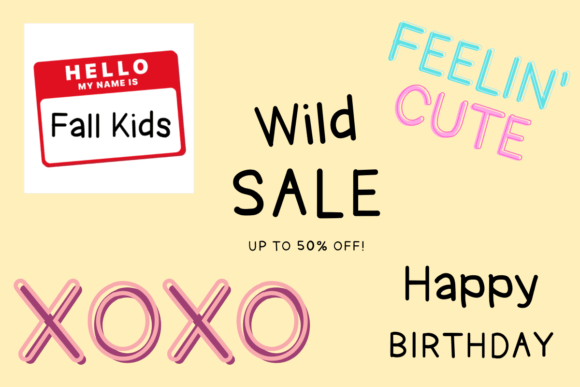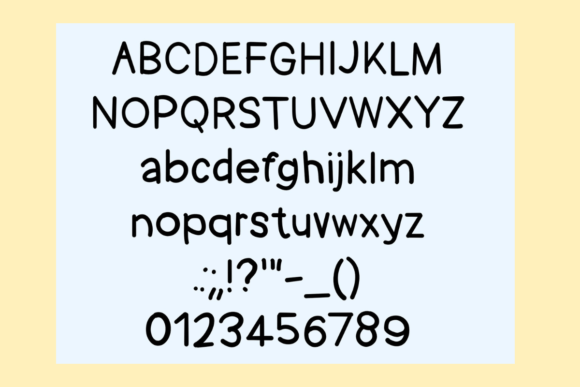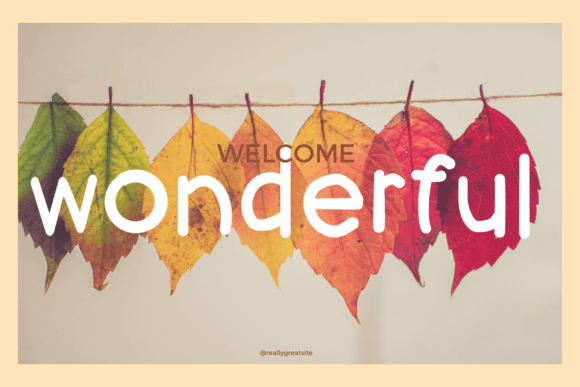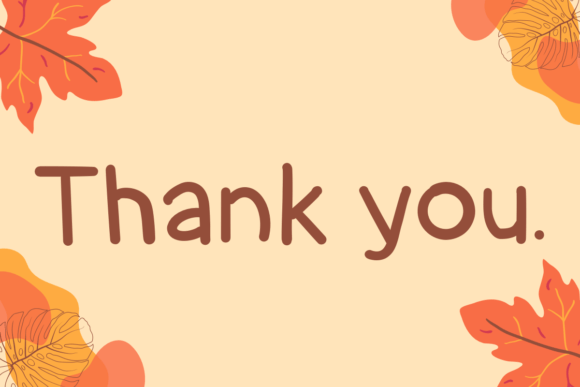
Introducing Fall Kids Font: The Perfect Addition to Your Design Arsenal
Are you a designer, crafter, or DIY enthusiast looking for a font that can add a touch of whimsy and fun to your projects? Look no further than the Fall Kids Font, also known as Superdong font. This sweet and friendly handwritten display font is ideal for a wide range of applications, from crafts and digital design to presentations, wedding invitations, and more.
What Makes Fall Kids Font So Special?
Fall Kids Font is a cute and fun font that is sure to bring a smile to your face. Its playful and friendly vibe makes it perfect for projects that require a lighthearted and approachable tone. Whether you’re creating a comic book, designing a game, or crafting a love shirt, this font is sure to add a touch of personality to your work.
Uses for Fall Kids Font
So, what can you use Fall Kids Font for? The possibilities are endless! Here are just a few ideas to get you started:
- Crafts: Use Fall Kids Font to add a personal touch to your craft projects, such as scrapbooking, card making, and DIY gifts.
- Digital Design: Add a playful touch to your digital designs, including social media graphics, blog posts, and website headers.
- Presentations: Make your presentations more engaging and fun with Fall Kids Font.
- Wedding Invitations: Use Fall Kids Font to create adorable and unique wedding invitations and stationery.
- Cards: Create one-of-a-kind greeting cards for birthdays, holidays, and other special occasions.
- Comic Book Style: Add a playful touch to your comic book-style illustrations and graphics.
- Game Online: Use Fall Kids Font to create engaging and fun online games.
- Love Shirt: Design adorable love shirts and other apparel with Fall Kids Font.
- Posters: Create eye-catching posters for events, promotions, and more.
- Movie Titles: Use Fall Kids Font to create catchy and memorable movie titles and credits.
Why Fall Kids Font is Perfect for Teachers and Students
Fall Kids Font is not just limited to designers and crafters. It’s also a great resource for teachers and students. Here are a few ways you can use Fall Kids Font in the classroom:
- Handwriting Practice: Use Fall Kids Font to create handwriting practice worksheets and activities.
- Classroom Decor: Add a playful touch to your classroom decor with Fall Kids Font.
- Project-Based Learning: Use Fall Kids Font to create engaging and interactive project-based learning activities.
Tips for Using Fall Kids Font
Here are a few tips for using Fall Kids Font:
- Experiment with Different Sizes: Fall Kids Font looks great in a variety of sizes, from small and delicate to large and bold.
- Combine with Other Fonts: Try pairing Fall Kids Font with other fonts to create a unique and interesting look.
- Use in Combination with Images: Fall Kids Font looks great when used in combination with images and illustrations.
Fall Kids Font, also known as Superdong font, is a sweet and friendly handwritten display font that is perfect for adding a touch of whimsy and fun to your projects. With its playful and friendly vibe, it’s ideal for a wide range of applications, from crafts and digital design to presentations, wedding invitations, and more. Whether you’re a designer, crafter, teacher, or student, Fall Kids Font is a great addition to your design arsenal.